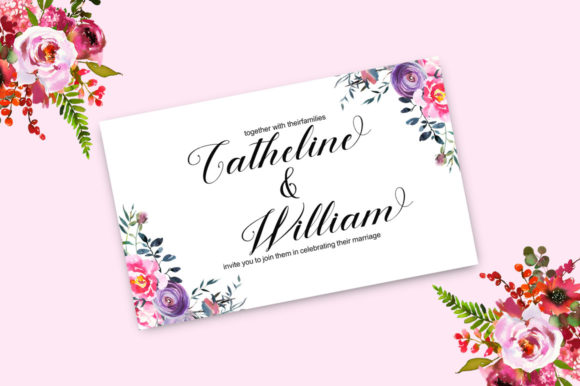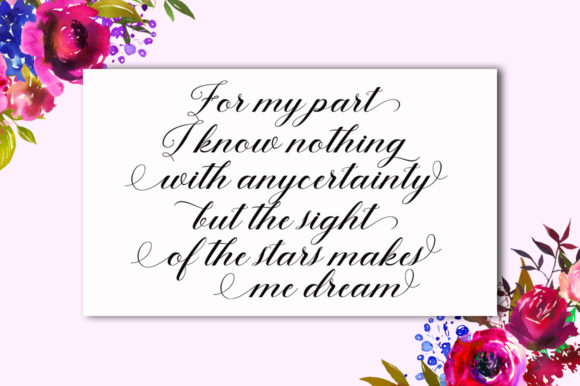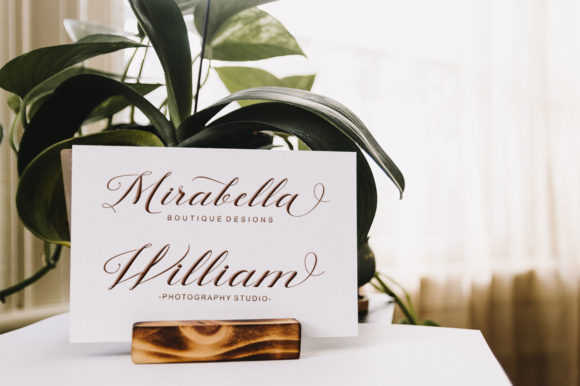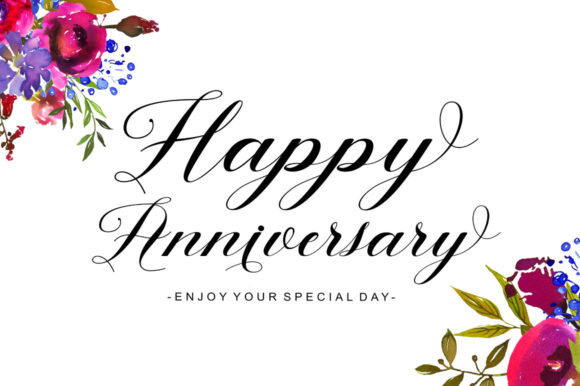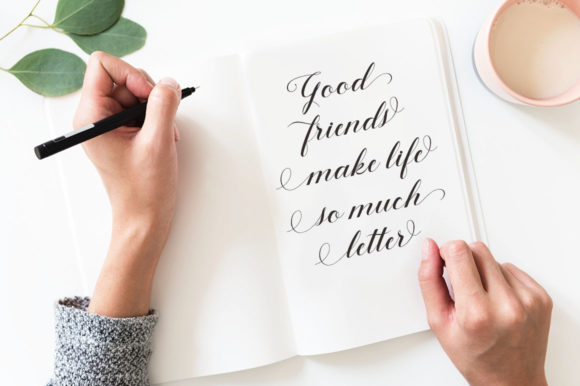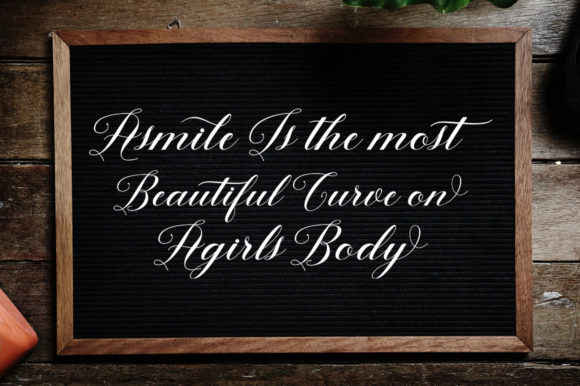
Introduction to Happyly Ever After Font Font
Fonts play a crucial role in design, and the Happyly Ever After Font font is a typeface that brings both character and versatility to any project. Whether you’re working on a branding project, a website, or a print design, the Happyly Ever After Font font offers a unique style that can elevate your work.
Happyly Ever After Script is a playful and romantic new modern script font with an irregular base line.
It includes beginning and end letters, alternatives, binding and support for multiple languages .
Key Features of Happyly Ever After Font Font
Why Choose Happyly Ever After Font Font?
The Happyly Ever After Font font is more than just a typeface – it’s a design tool that helps you communicate your message with style and clarity. Its unique character set and versatile design make it suitable for a wide range of applications, from elegant invitations to bold headlines.
With its carefully crafted letterforms and balanced proportions, the Happyly Ever After Font font ensures readability and visual appeal across all mediums.
What makes Happyly Ever After Font font special?
The Happyly Ever After Font font stands out with its unique design, exceptional readability, and versatility across various design applications.